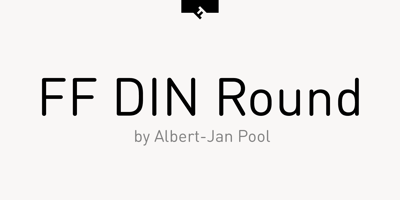
FF DIN Round
FF DIN Round font
FF DIN Round Font Family was designed by Albert-Jan Pool and published by FontFont. FF DIN Round contains 5 styles and family package options. This welcome addition to FontFont’s most popular family brings a softness to FF DIN’s simplicity and industrial sterility. FF DIN Round is more than a “search-and-replace” rounded version of its predecessor. Albert-Jan Pool and his team redrew each letterform to maintain the structure of the original. This ensures FF DIN and FF DIN Round will work well together in logos, slogans, price tags, etc. as compatible parts of advertising campaigns and corporate identities. FF DIN Round is not only a good companion to FF DIN, its smooth and friendly curves make it work on its own for branding strategies for family cars, bikes, household appliances, sportswear, shoes, or medical products. It’s also very legible on screen. This FontFont is a member of the FF DIN super family, which also includes FF DIN.